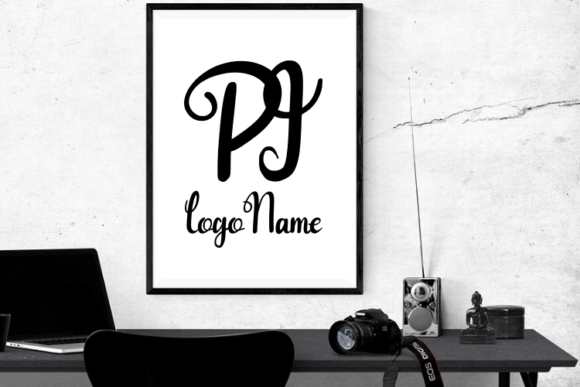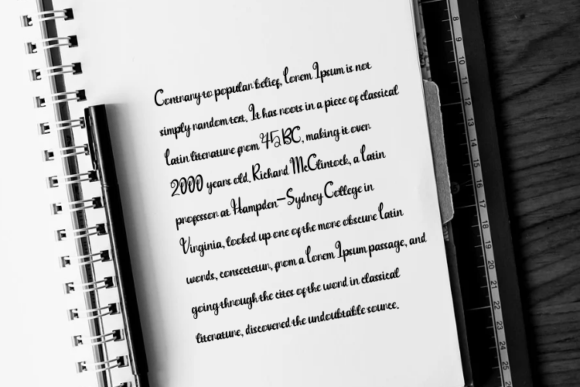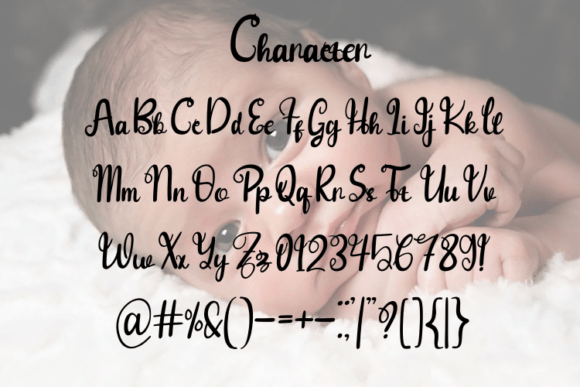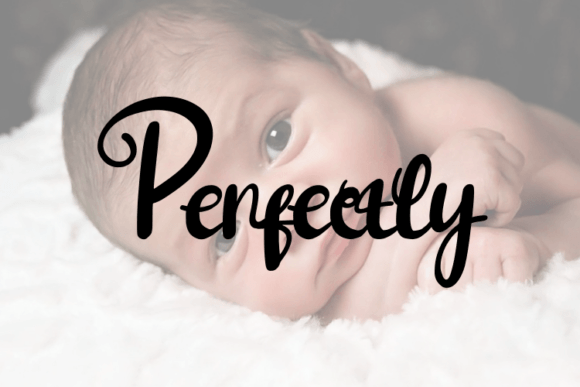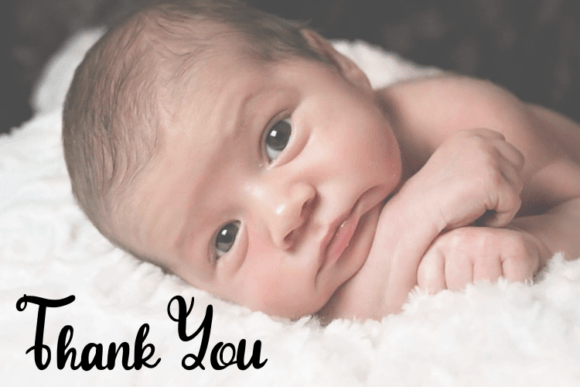
Baby Cell Font: Elevate Your Design with Elegance and Luxury
In the world of typography, fonts play a crucial role in conveying the tone and aesthetic of a design. For those seeking a script typeface that exudes simplicity, modernity, and sophistication, Baby Cell Font is an excellent choice. This elegant typeface is perfect for designers and crafters looking to add a touch of luxury to their projects, whether it’s for a logo, book or movie title, fashion brand, magazine, clothing, or inspirational quotes.
About Baby Cell Font
Baby Cell Font is a script typeface characterized by its simple yet modern style. Its clean lines and effortless flow make it an ideal choice for designs that require a touch of elegance and refinement. The font’s versatility allows it to be used across various platforms and applications, from digital media to print materials.
Key Features of Baby Cell Font
• Simple and Modern Style: Baby Cell Font boasts a straightforward and contemporary design that fits well with current trends.
• Elegant and Luxurious: The font’s smooth curves and lines lend an air of sophistication, making it suitable for high-end designs.
• Versatile: Its adaptability allows Baby Cell Font to be used in a wide range of projects, from logos and titles to magazines and clothing.
Use Cases for Baby Cell Font
Baby Cell Font’s flexibility makes it an excellent choice for various design projects. Here are some of the top use cases:
• Elegant Logos: Create a lasting impression with a logo that embodies luxury and sophistication.
• Book and Movie Titles: Add a touch of class to your book covers or movie titles with this refined script typeface.
• Fashion Brands: Elevate your fashion brand’s visual identity with a font that speaks to elegance and style.
• Magazines and Publications: Use Baby Cell Font to give your magazine or publication a sleek and modern look.
• Clothing and Apparel: Perfect for designing t-shirts, hoodies, and other apparel that requires a stylish and contemporary font.
• Inspirational Quotes: Present motivational quotes in a beautiful and easy-to-read format.
Why Choose Baby Cell Font?
Choosing Baby Cell Font for your design project comes with several advantages:
• Unique and Memorable: Stand out from the crowd with a font that is both distinctive and memorable.
• Easy to Read: Despite its elegant style, Baby Cell Font remains clear and legible, even at smaller sizes.
• Highly Versatile: Seamlessly integrate this font into various design projects, from digital to print.
Tips for Using Baby Cell Font Effectively
To maximize the impact of Baby Cell Font, consider the following tips:
• Pair with Complementary Fonts: Combine Baby Cell Font with sans-serif fonts for a balanced and harmonious look.
• Adjust Letter Spacing: Fine-tune the letter spacing to ensure optimal readability and aesthetic appeal.
• Experiment with Colors: Take advantage of Baby Cell Font’s versatility by experimenting with different colors and gradients.
Font Name Baby Cell Font
Author Eric Kusuma
Baby Cell Font is a sophisticated script typeface that brings a modern and elegant touch to any design project. Its simplicity, versatility, and luxurious feel make it an excellent choice for designers and crafters aiming to create high-end visuals. Whether you’re working on a logo, book or movie title, fashion brand, magazine, clothing, or inspirational quotes, Baby Cell Font is sure to elevate your design to new heights.